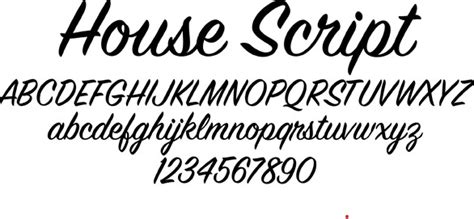
Font Sign Painter House Script. Its interest was designed and shared by means of using the old design. Web sign painter house script regular by house industries.
This typeface is also used for its pairing function and it is for free download. Complete family of 9 fonts: Web download signpainter housescript font for free. Its interest was designed and shared by means of using the old design. Web sign painter house script regular by house industries. Sign painter house script regular. Sign painter contains 9 styles and family package options. Now available in tff and zip format. Web sign painter house script is famous for its bold and italic function. Web sign painter font family was designed by ken barber and published by house industries.
Complete family of 9 fonts: Sign painter house script regular. Now available in tff and zip format. Web signpainter housescript regular is a regular opentype font. Web download signpainter housescript font for free. Complete family of 9 fonts: Get this font in bold, italic, uppercase, lowercase, regular and thin. Web sign painter font family was designed by ken barber and published by house industries. Web sign painter house script is famous for its bold and italic function. This typeface is also used for its pairing function and it is for free download. Sign painter contains 9 styles and family package options.